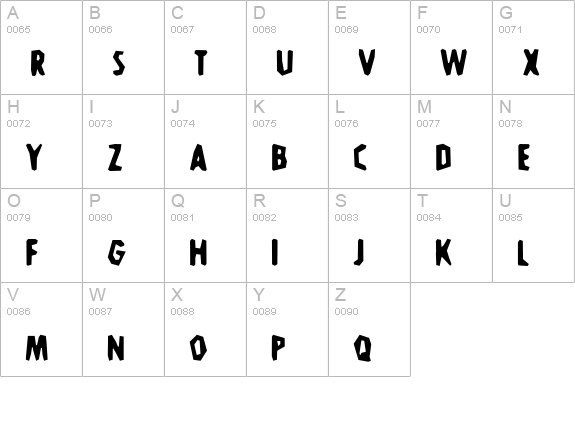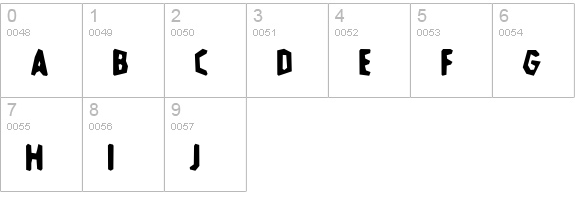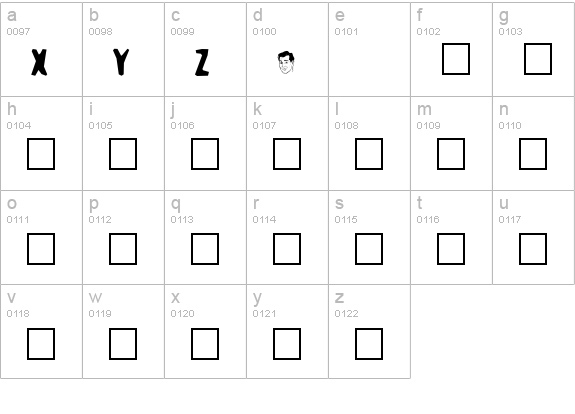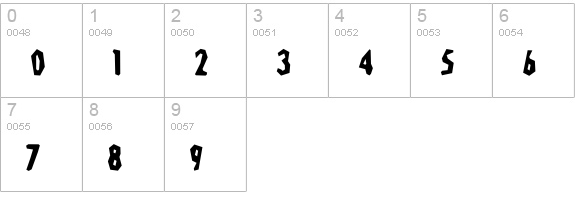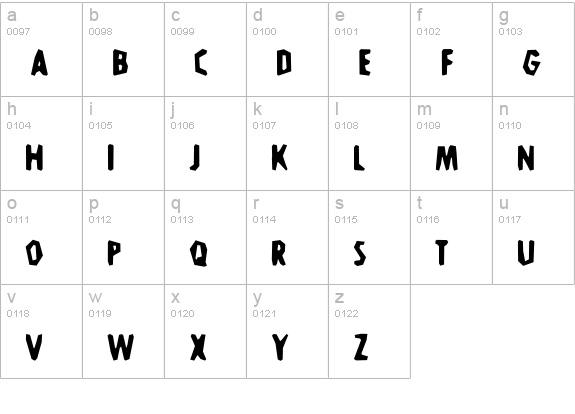
Stone-Age Font Details
The Stone-Age font is a captivating typeface that beautifully captures the essence of ancient times with its rugged and primitive design. Its rough edges and bold strokes evoke a sense of raw power and primal energy, making it an ideal choice for projects that require a touch of antiquity and mystery. This unique font is not only visually striking but also versatile, suitable for a wide range of design applications including posters, logos, and branding materials. Its distinctive style sets it apart from conventional fonts, adding a touch of authenticity and character to any project. Best of all, the Stone-Age font is completely free to download at FontsMarket.com. Whether you're a seasoned designer looking to add a new dimension to your work or a novice seeking a bold and unconventional font, the Stone-Age font is sure to impress and inspire. Download it today and unleash the power of the past in your designs!